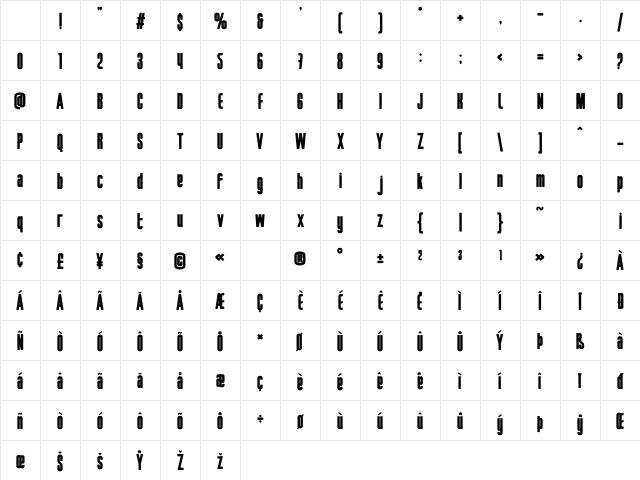
Focused Block Bold is a composed and adaptable typeface that performs quietly and consistently across a wide range of design contexts. Its bold stroke weight gives it real presence on the page.